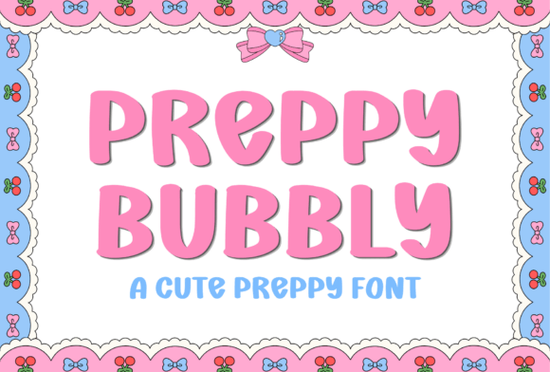
If you need a typeface that brings instant energy to craft projects, Preppy Bubbly Font delivers exactly that kind of playful charm. This handwritten display option uses thick, rounded letterforms to create a soft yet legible aesthetic that works well across various media. Small business owners and digital makers appreciate how quickly it transforms plain layouts into eye-catching pieces. Sublimation artists rely on its clean curves when transferring prints to apparel, while hobbyists love how it adds a fresh, youth-friendly finish without sacrificing readability.
What makes this typeface stand out for handmade projects?
The design relies on consistent weight and smooth transitions between strokes, which keeps it from looking cluttered even at smaller sizes. The open counters and slightly uneven baseline give it a hand-drawn quality, yet it remains structured enough for professional results. That balance matters when you plan to scale artwork for large cut files or shrink typography down for tiny planner labels. Creators often use it to set titles, headlines, or standalone quotes that read easily on screen and hold up well after printing.
How can you apply it across different product lines?
Sellers and hobbyists typically reach for this style when they want to inject warmth into their offerings. Here are a few common applications that save time while boosting visual appeal:
- Classroom supplies – Labels and reward charts gain a cheerful tone that encourages student engagement.
- Planner sticker sets – Compact curves fit neatly inside die-cut shapes without breaking the outline.
- Social media templates – Soft lettering stops scrollers while keeping captions readable on mobile devices.
- Party invitations – Birthdays and casual gatherings benefit from the celebratory mood built into every character.
- Apparel and totes – Thick outlines separate clearly when routed through cutting software, reducing registration issues during production.
Maintain consistent spacing and allow extra room around tight curves so designs breathe on digital and printed surfaces.
Which complementary styles work best alongside it?
Mixing typography comes down to contrast and rhythm. Since this primary face already carries significant visual weight, pairing it with thinner, more refined scripts creates a balanced hierarchy. Many makers swap in alternatives like Waiting Font for subtle background watermarks, or choose Bethany Script when drafting elegant sign-off notes beneath cheerful headlines. If you prefer something sturdier, Mothers Plate Font offers a slightly more structured rhythm, while Betterfly Font keeps things light and airy for delicate accents. A clean geometric fallback like Smithson Font can ground heavier compositions when you need a neutral base for busy backgrounds.
Limit yourself to two or three type families per layout to prevent visual fatigue and keep messaging clear.
Where should you source additional matching typefaces?
Quick implementation checklist
- Add a secondary script below the main line, reduce opacity to thirty percent, and position it off-center for subtle depth.